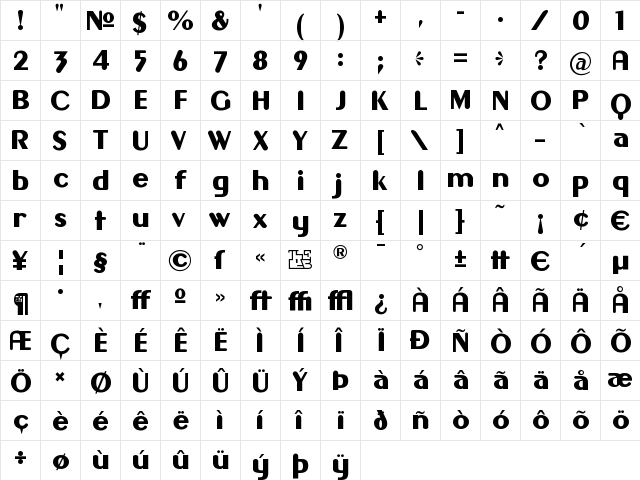
Gilgongo Regular
| Designer | Apostrophe & Graham Meade |
Design Context for Gilgongo Typeface
Gilgongo takes a measured approach to typography — its balanced proportions and neutral character make it a reliable workhorse for both digital and print work.